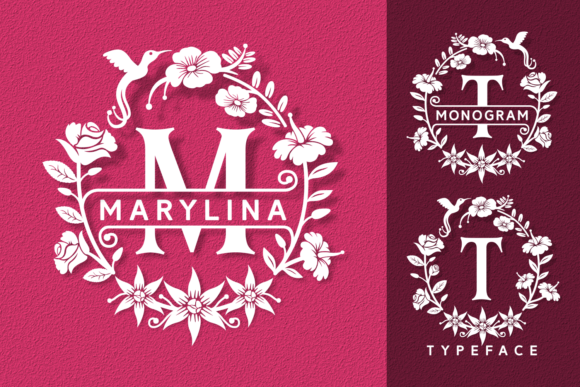
Welcome to the realm of Marylina, where dreams are engraved in stone and romance blooms like wildflowers. This decorative font, crafted with love by the artisans at 7NTypes, is a testament to the power of intricate beauty. Marylina's delicate strokes and highly detailed design will transform your words into works of art, capturing the essence of love, joy, and timeless elegance.
With Marylina, your love letters will sing with passion, your wedding invitations will radiate elegance, and your design ideas will blossom into masterpieces. Each glyph and swash is PUA encoded, granting you effortless access to a vast world of creative possibilities. Let your imagination soar and allow Marylina to guide you through a journey of artistic expression.
Picture the glow of candlelight illuminating a handwritten letter penned with Marylina's enchanting characters. Feel the warmth of love enveloping you as you read words that dance across the page, whispering tales of devotion and desire. Marylina is more than just a font; it's an experience that ignites the senses and leaves a lasting impression.
Now, close your eyes and envision a wedding invitation adorned with Marylina's graceful lines. Intricate swirls and flourishes create an aura of sophistication, hinting at the joyous celebration to come. Marylina transforms ordinary words into extraordinary declarations, setting the stage for a day filled with love, laughter, and happily ever after.
Unleash your creativity and let Marylina breathe life into your design projects. Whether you're crafting logos, posters, or social media graphics, this font will add a touch of elegance and charm that captivates your audience. Marylina is the key to unlocking a realm of artistic possibilities, where your ideas take form and leave an indelible mark on the world.
Join the countless artists, designers, and lovers of beauty who have embraced Marylina's allure. Let this font ignite your passion, fuel your creativity, and leave a lasting legacy of love and artistry. Step into the world of Marylina today and discover the magic that awaits.